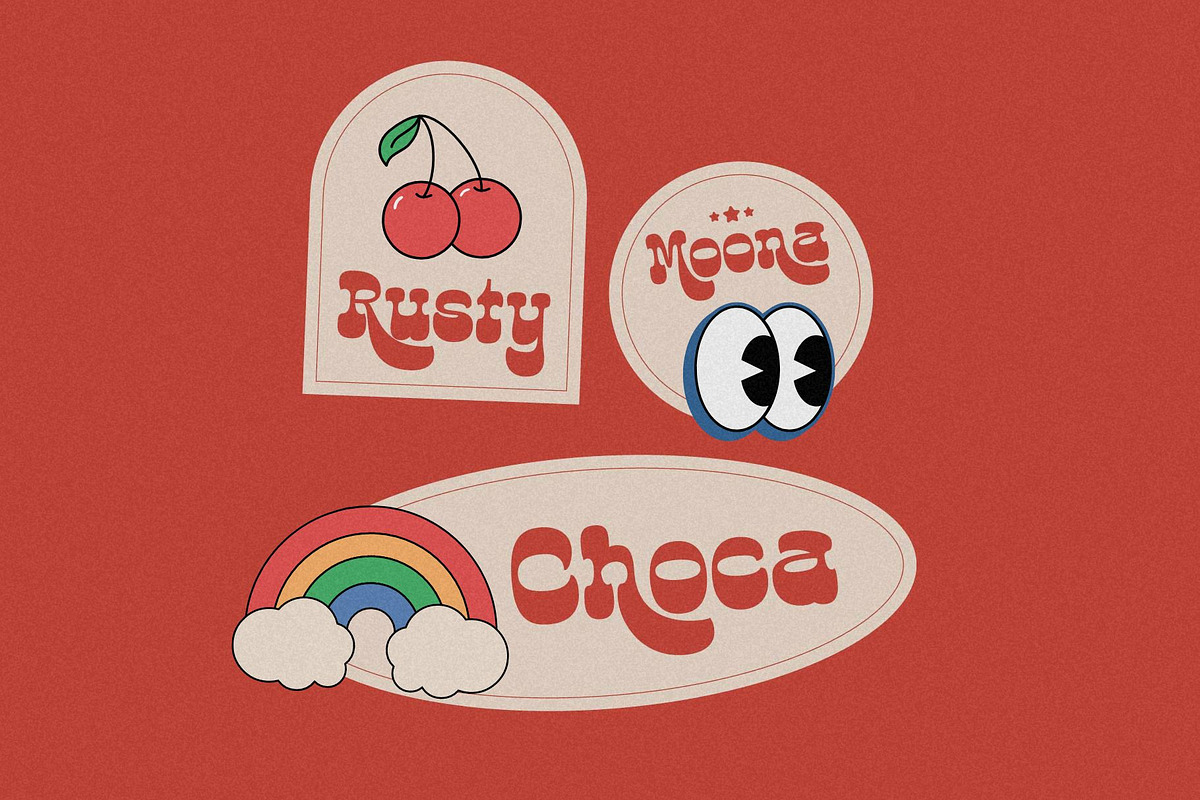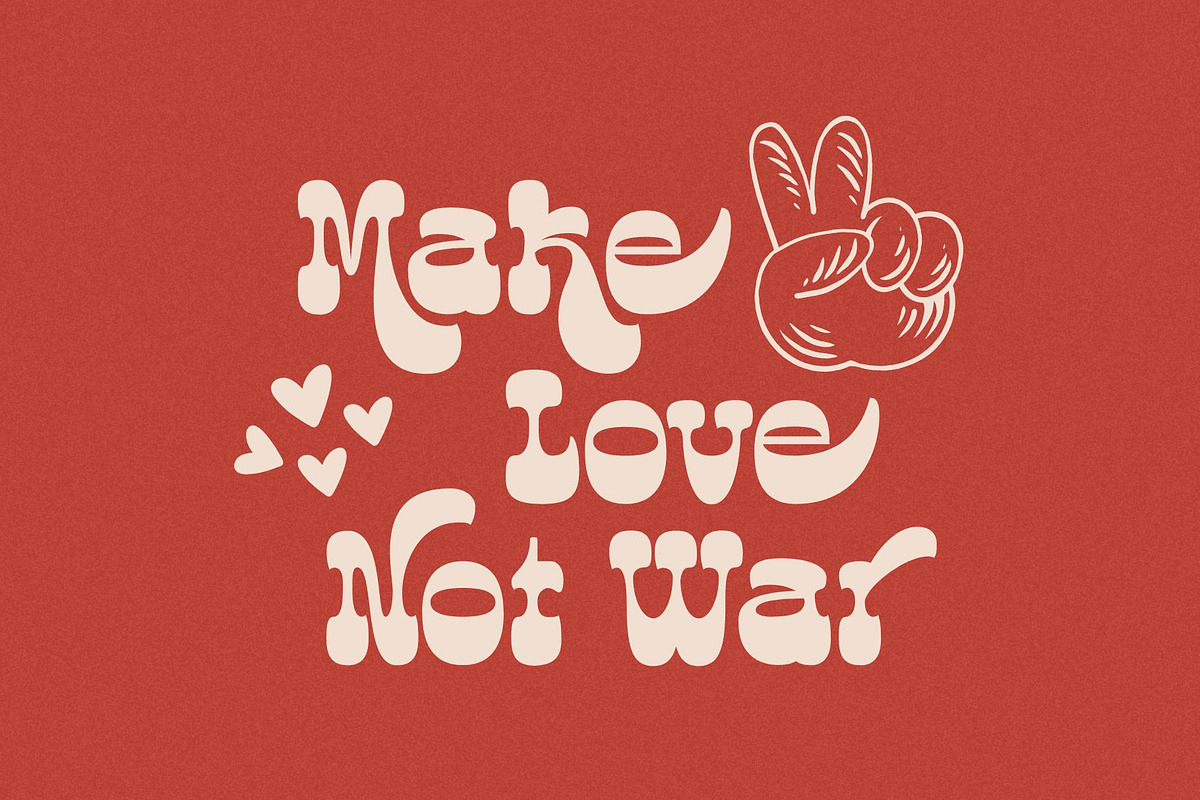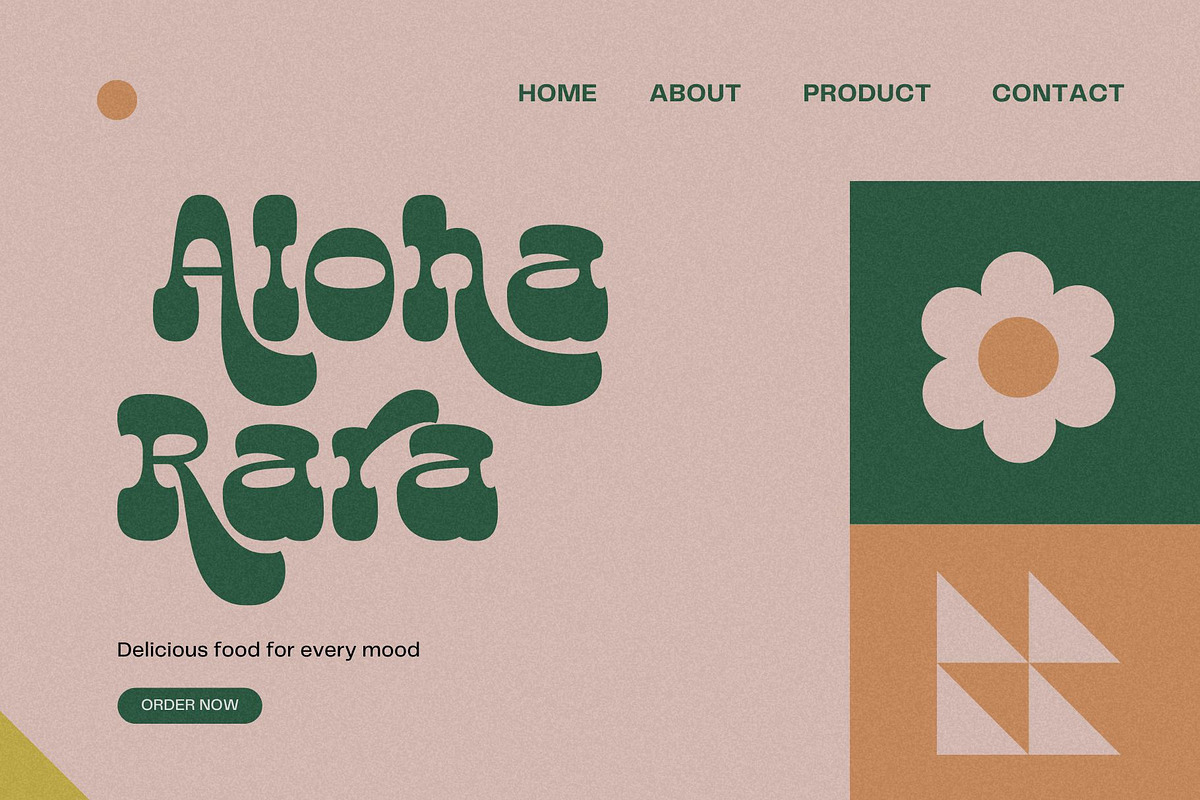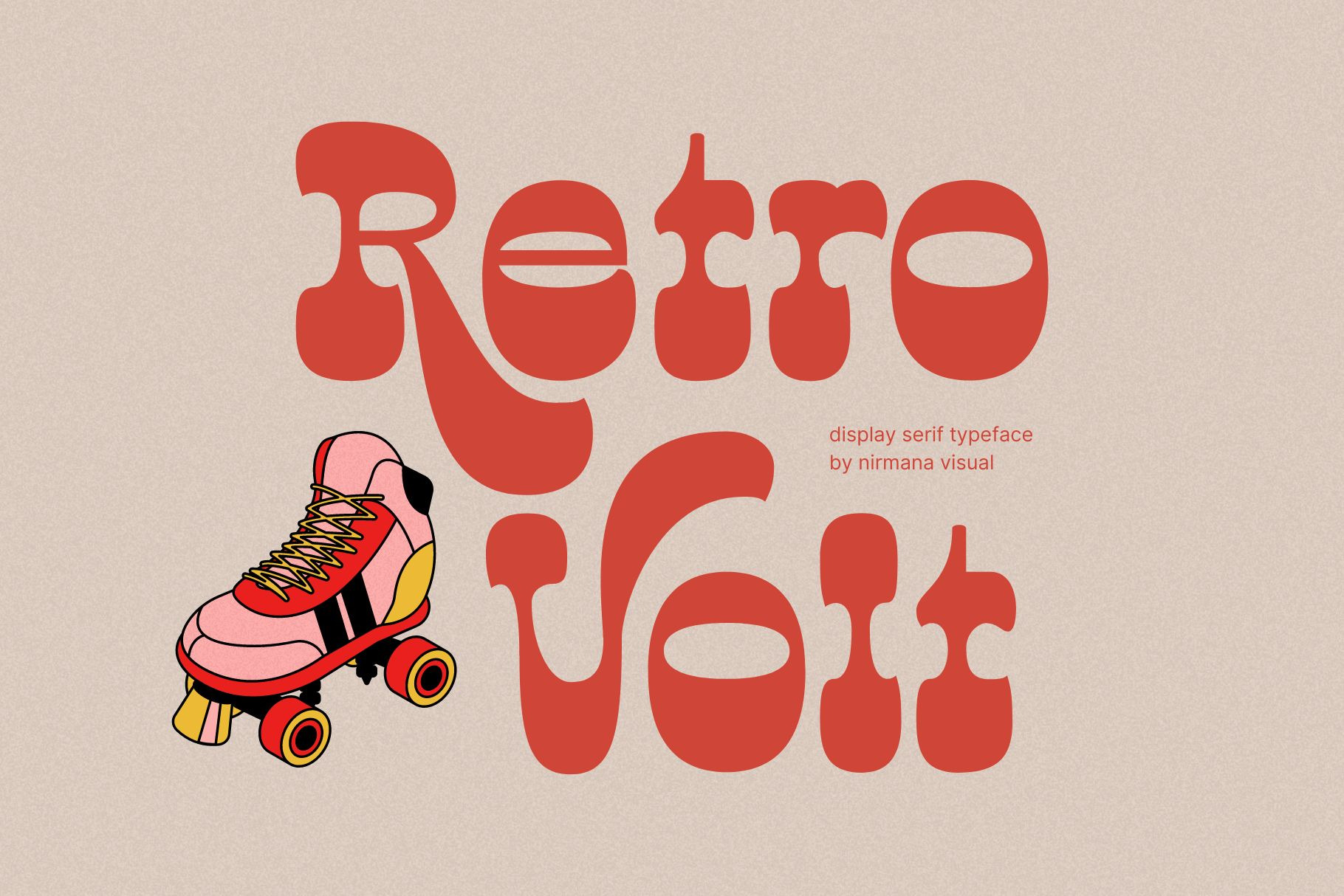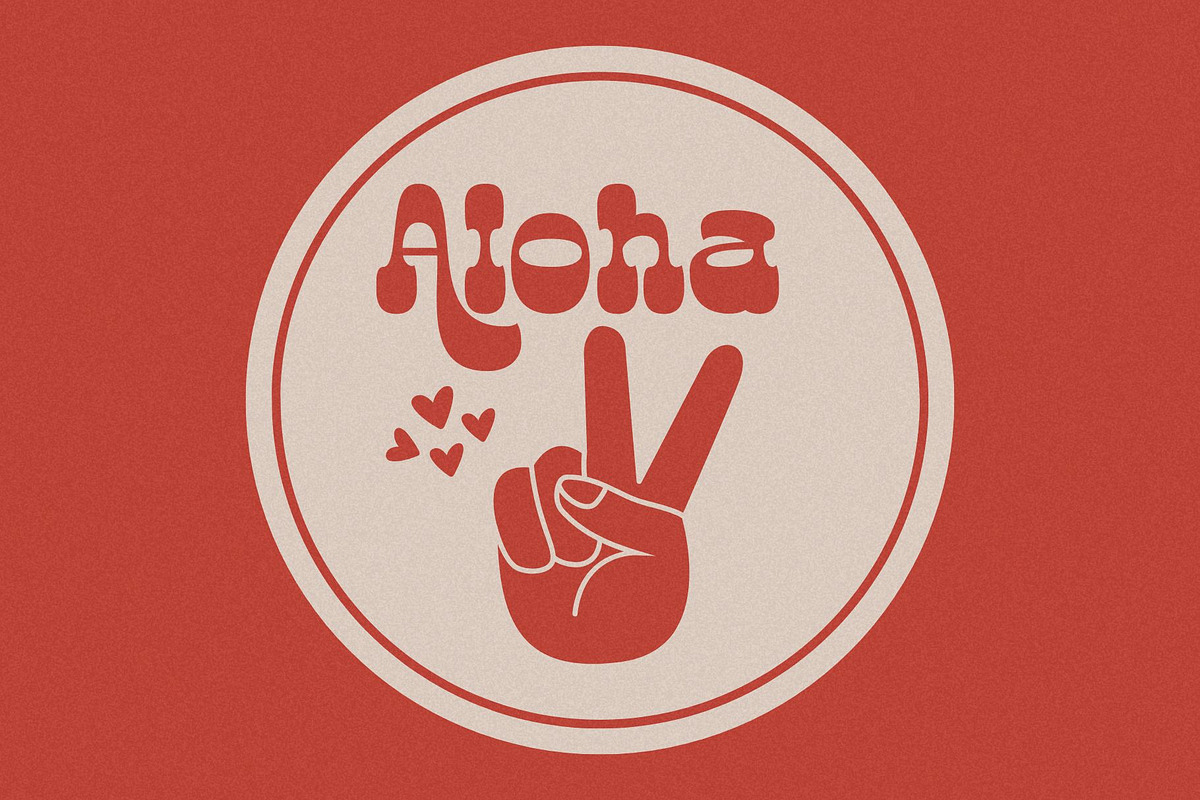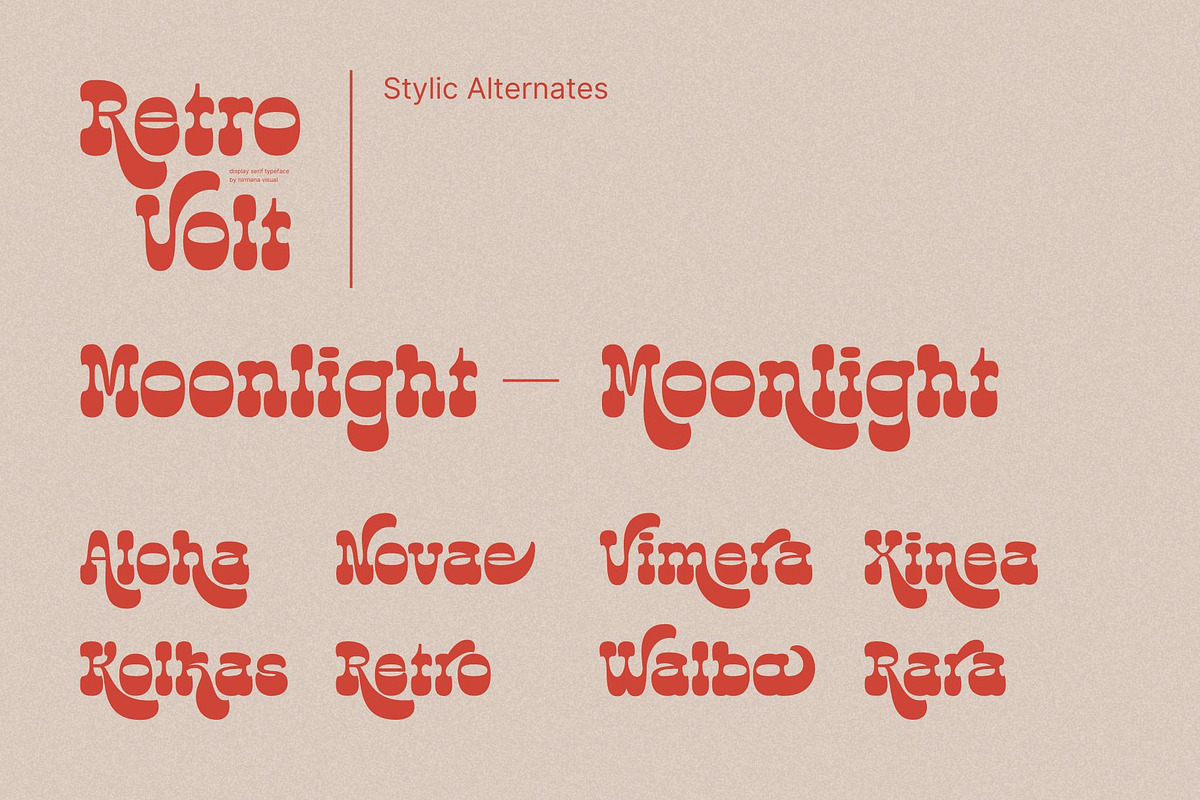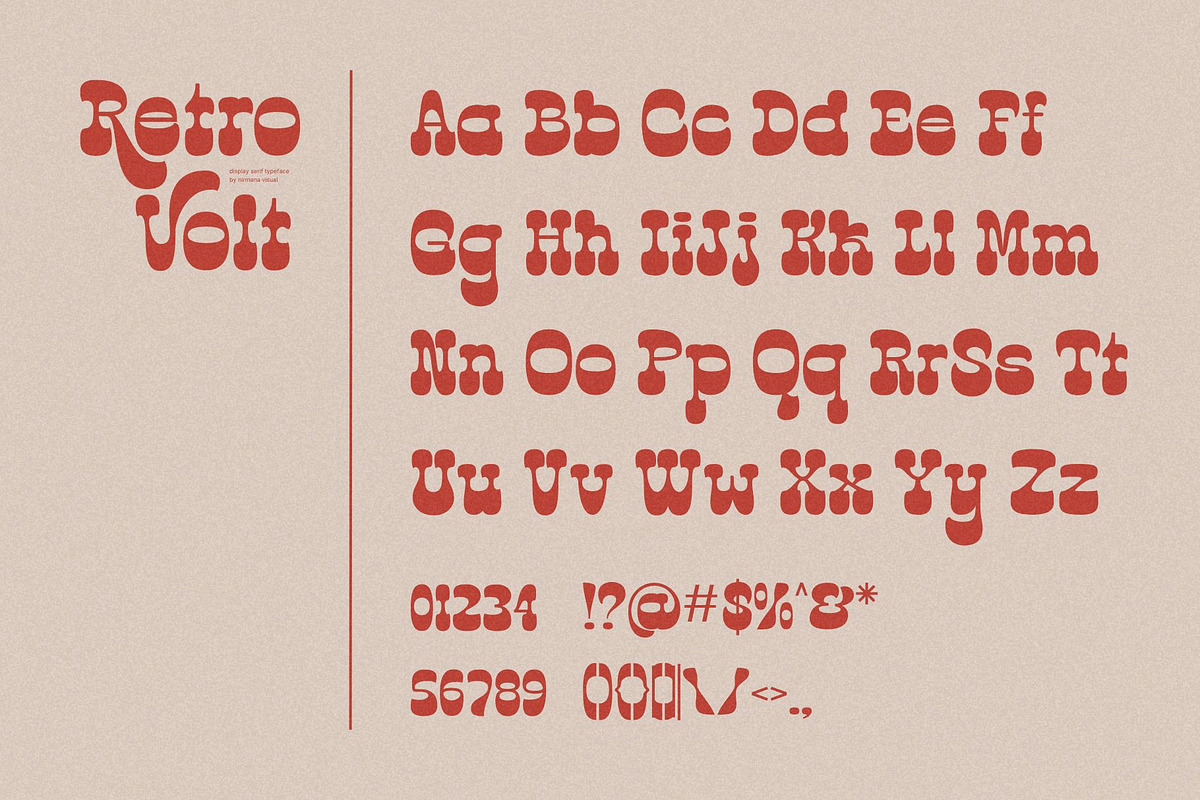
Retro Volt - Vintage Font
Retro Volt Inspired by 70s-80s Design Era. Retro Volt offers beautiful typographic harmony for a diversity of design projects, including logos & branding, social media posts, advertisements & product designs.